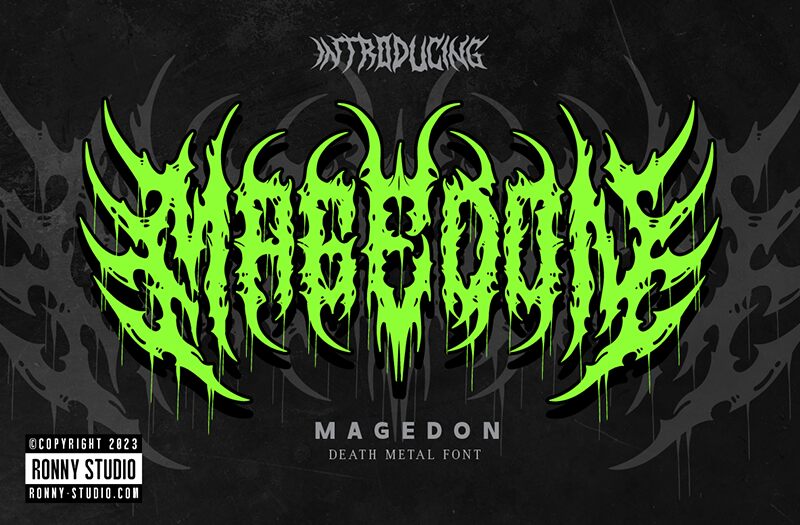
Magedon by Ronny Studio is a captivating modern gothic font that commands attention. Exuding a bold, dynamic presence, its sharp, angular letterforms evoke a sense of raw power and intensity. The condensed width lends an air of elegance and refinement, while the intricate, jagged edges create a striking, visceral aesthetic. This font is a masterful blend of tradition and innovation, seamlessly marrying the timeless allure of gothic styles with a fresh, contemporary flair.
Magedon's versatility makes it a versatile choice for a wide range of design applications. Its commanding presence lends itself well to striking headers, logos, and branding materials, while its legibility also allows for effective use in body text. Whether showcasing a strong brand identity, crafting an impactful editorial layout, or adding a touch of edgy sophistication to a digital interface, Magedon by Ronny Studio is a font that demands attention and leaves a lasting impression.